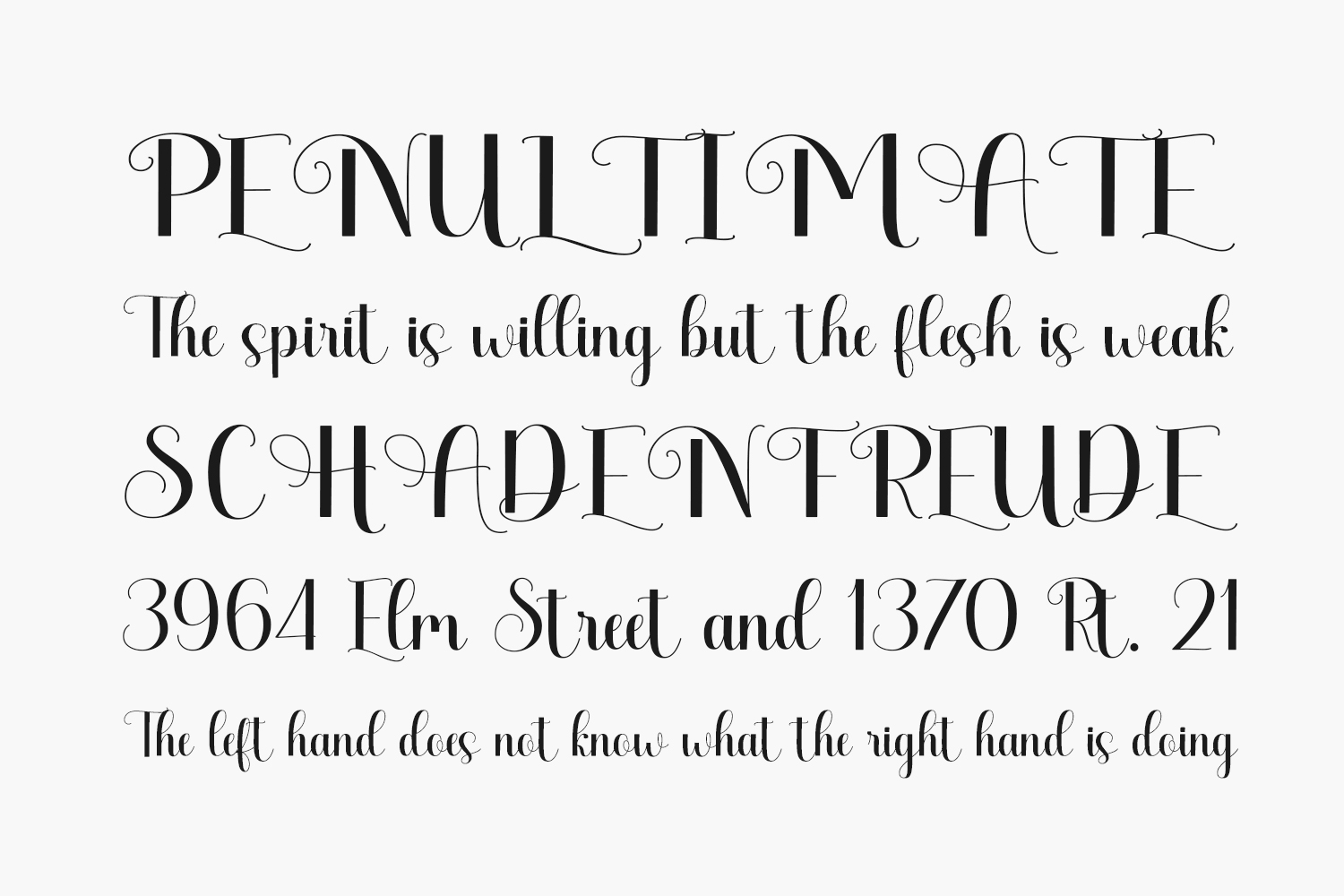
Agisthina Free Font is a modern calligraphy font that exudes elegance and sophistication. The font has a sleek and refined look, with smooth lines and delicate strokes that convey a sense of class and refinement. The font has a unique, modern twist that gives it a sense of contemporary elegance, making it ideal for projects that require a touch of luxury and style. Agisthina Free Font evokes feelings of refinement and poise, making it perfect for any project that needs to exude a sense of elegance and class. The font has a unique elegance that gives it a sense of timelessness and sophistication.